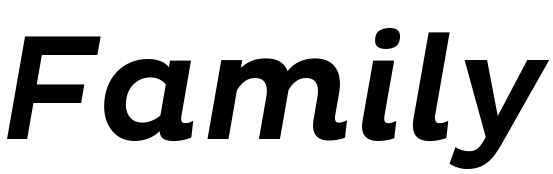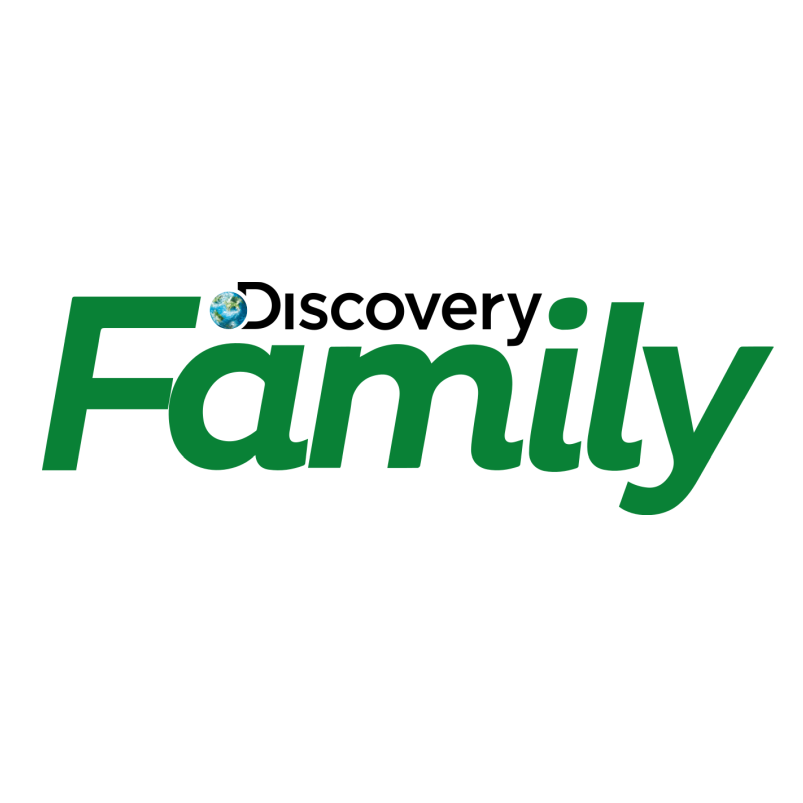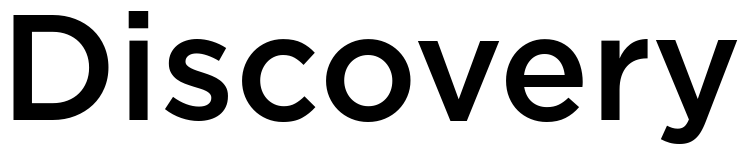
Discovery Family Font
Fonts in UseDiscovery Family is a cable TV channel that features family-oriented programming, including animated and live-action shows, as well as documentaries and movies. It is a joint venture between Discovery, Inc. and Hasbro, Inc.
The "Family" text is displayed in Pluto Medium Italic, a sans-serif font designed by Hannes von Döhren and published by HVD Fonts. On the other hand, the "Discovery" text appears to use Gotham with some modifications.